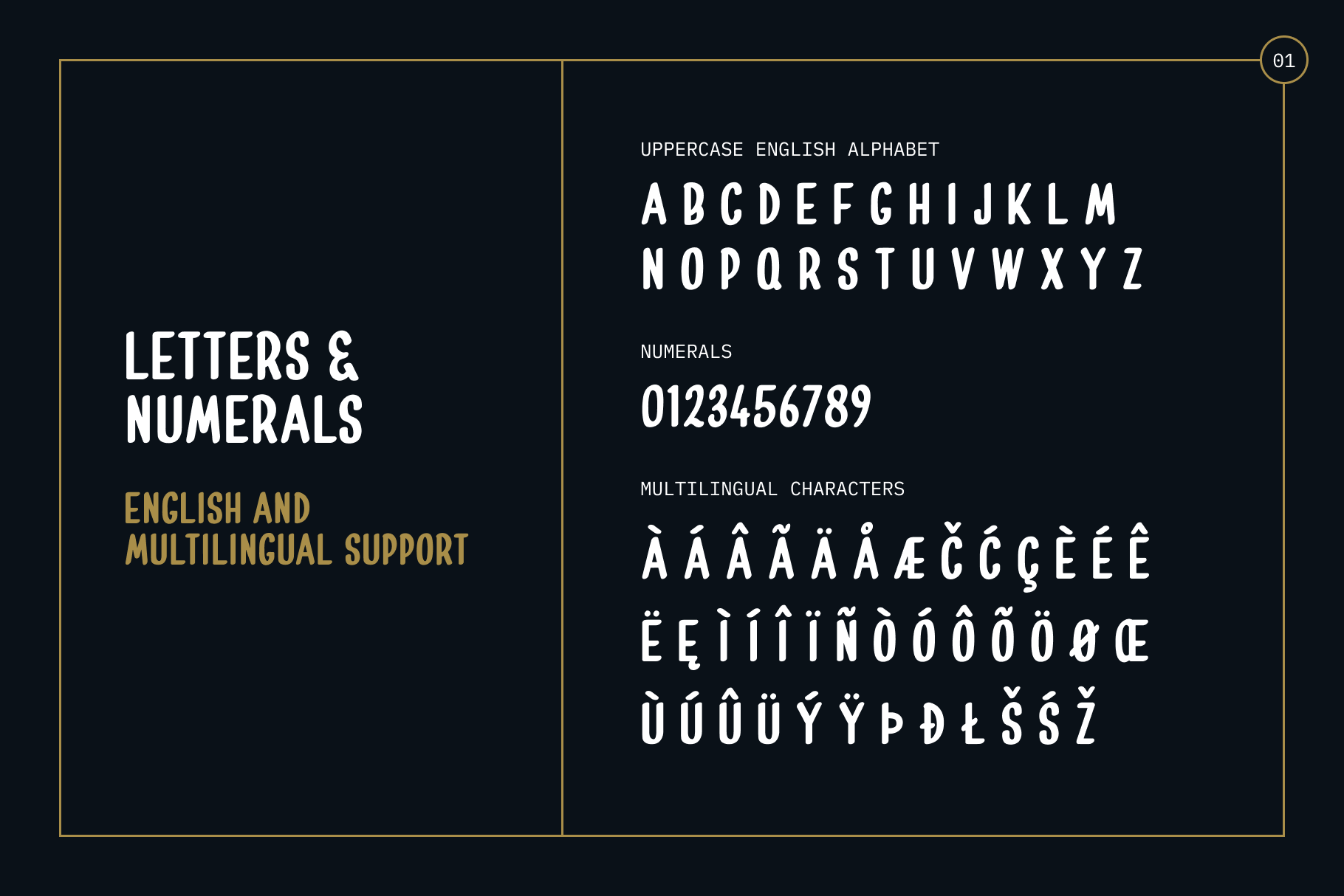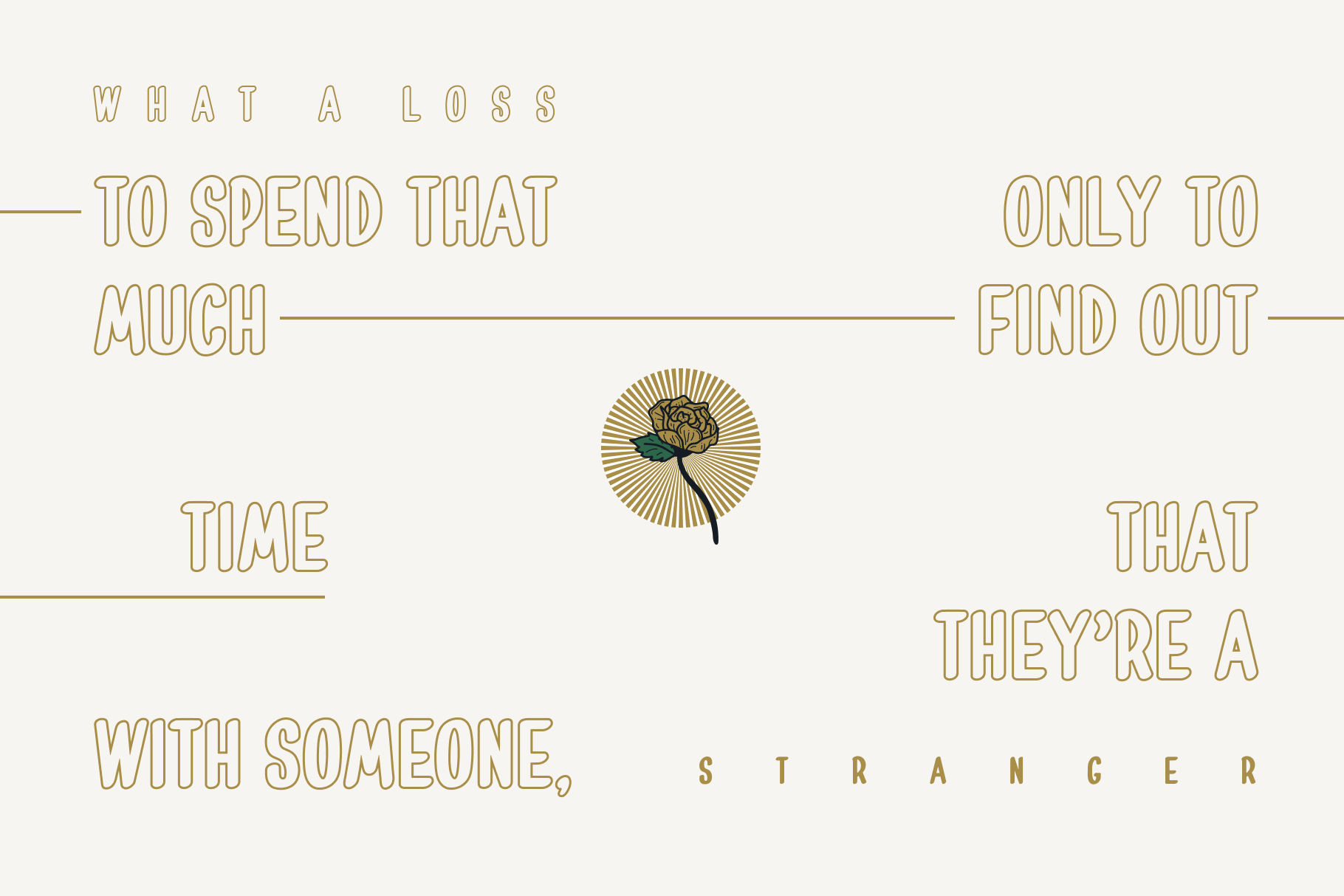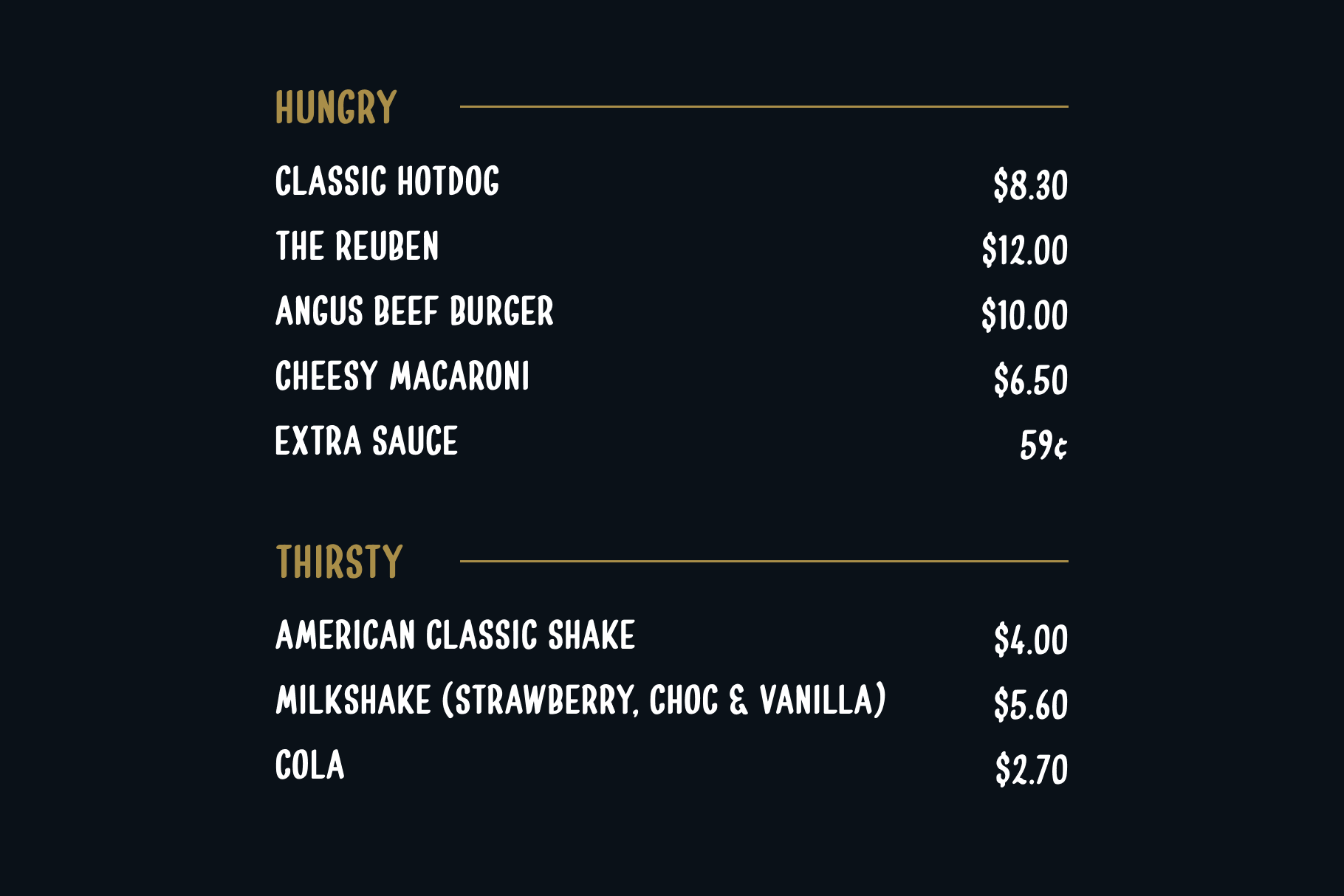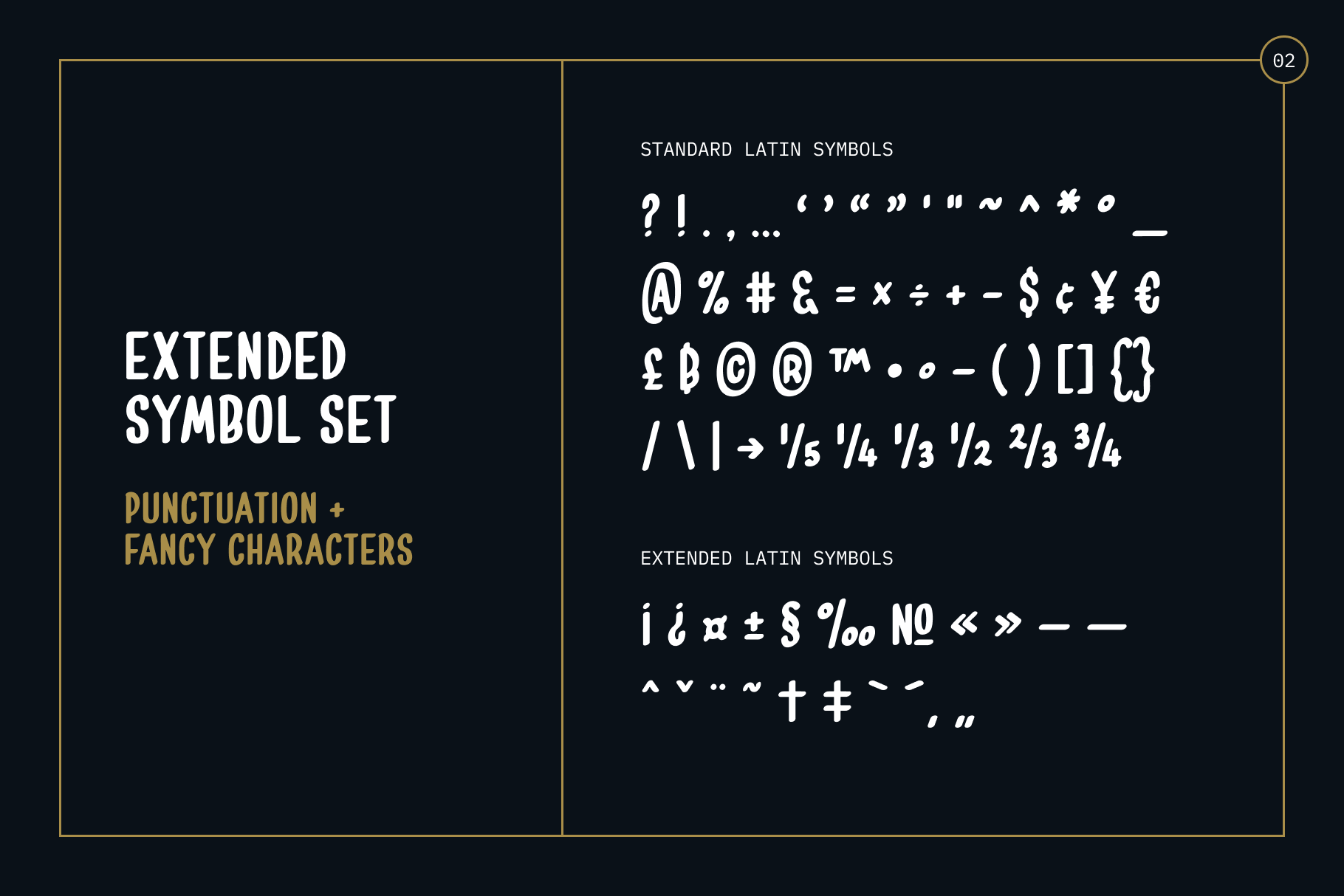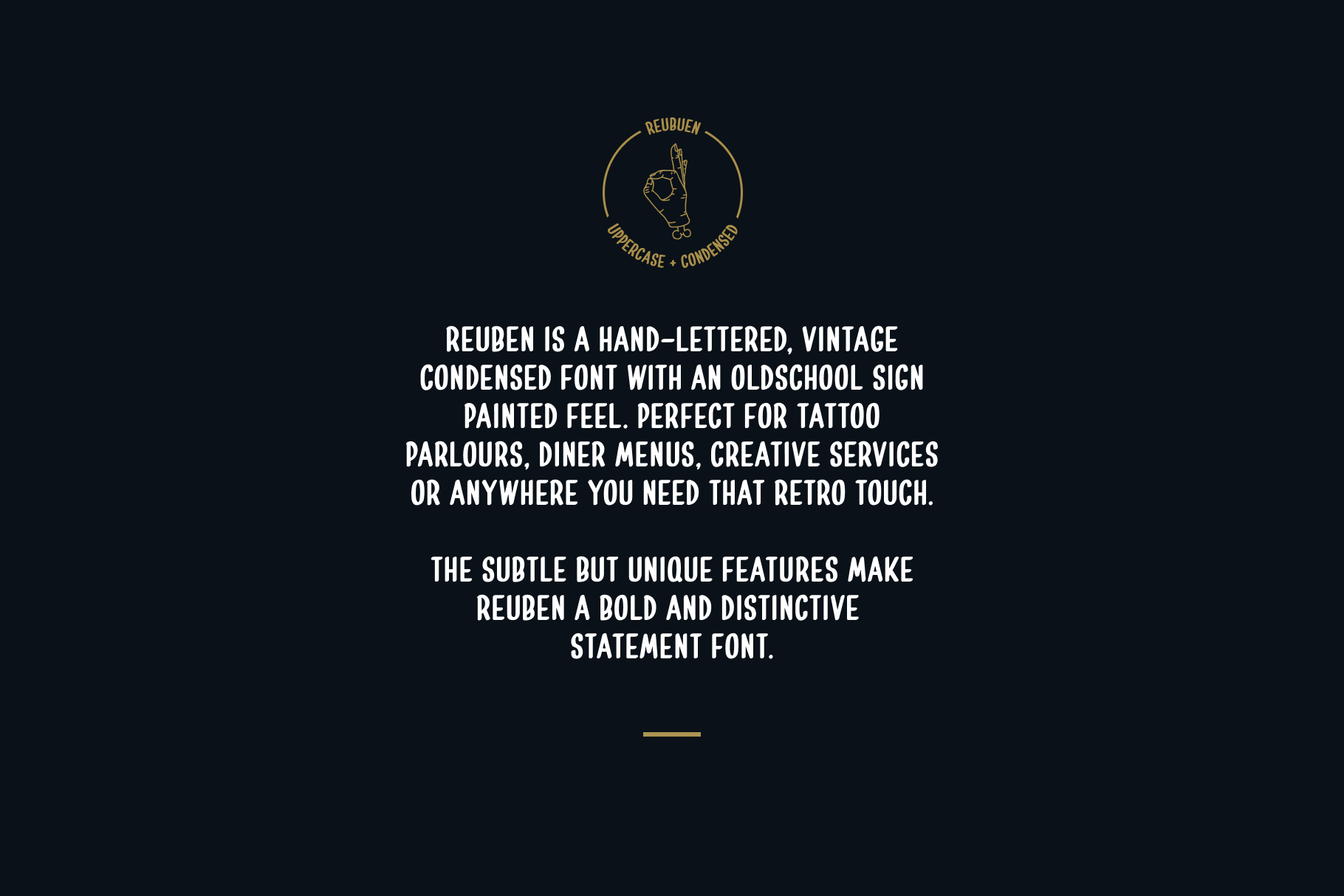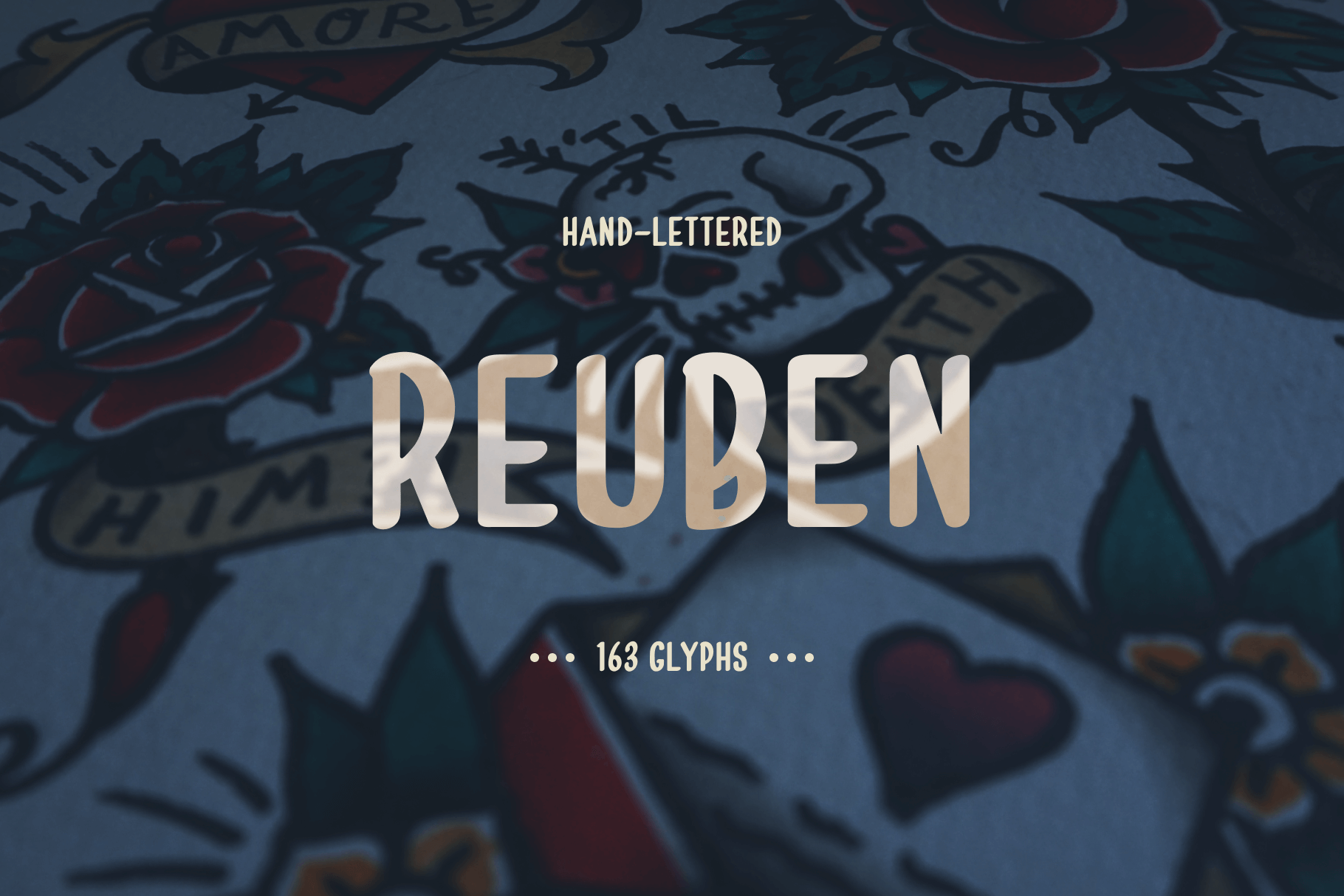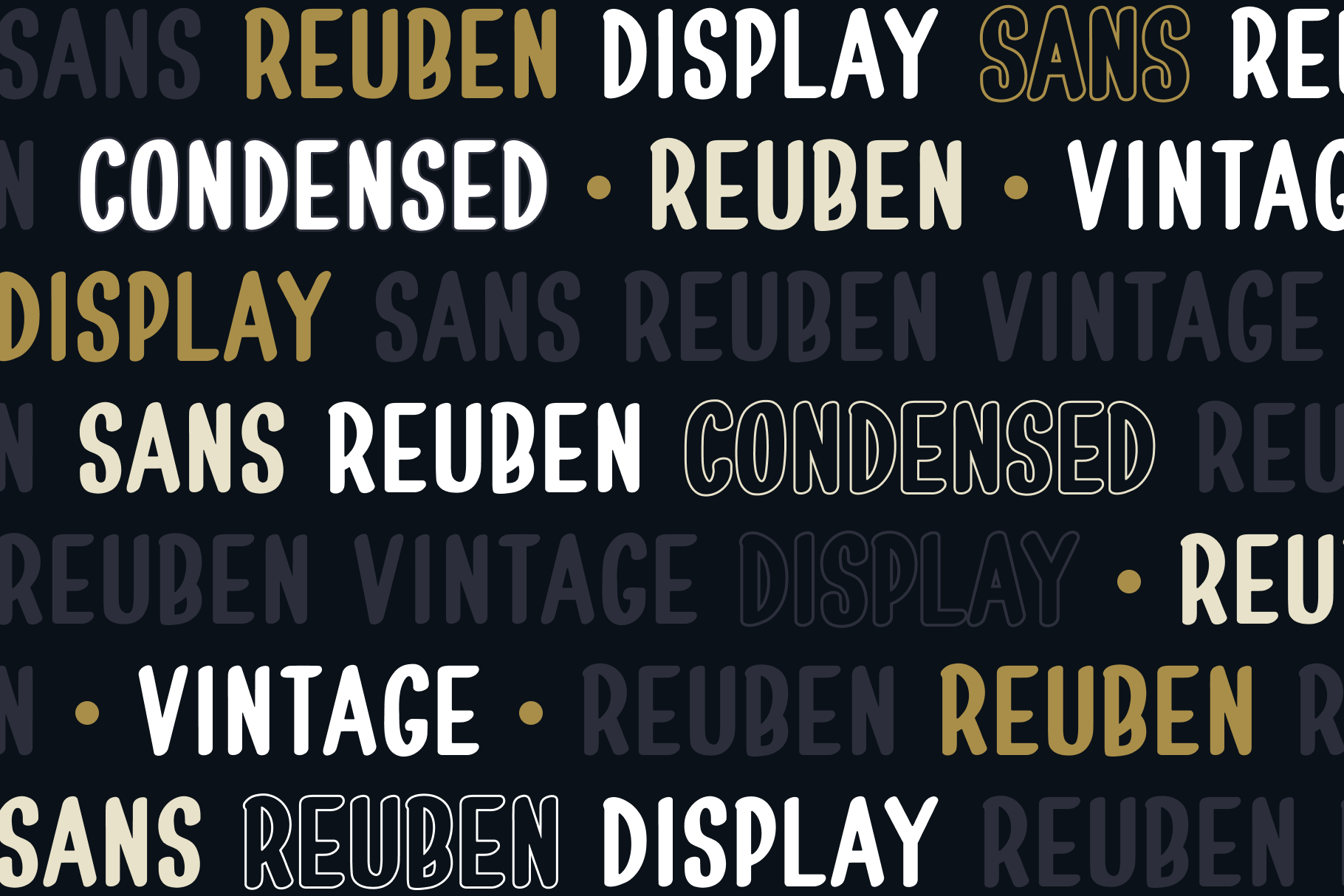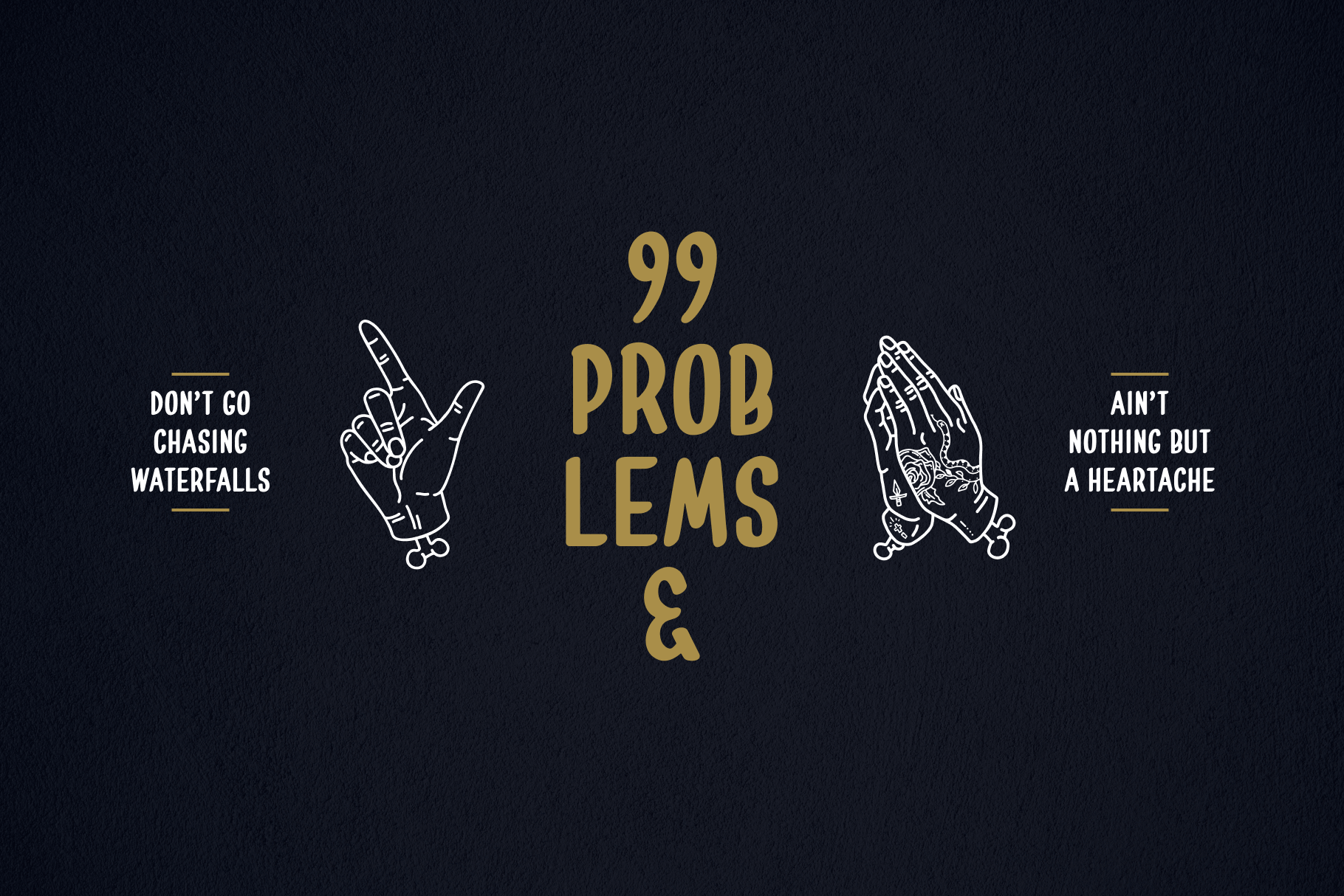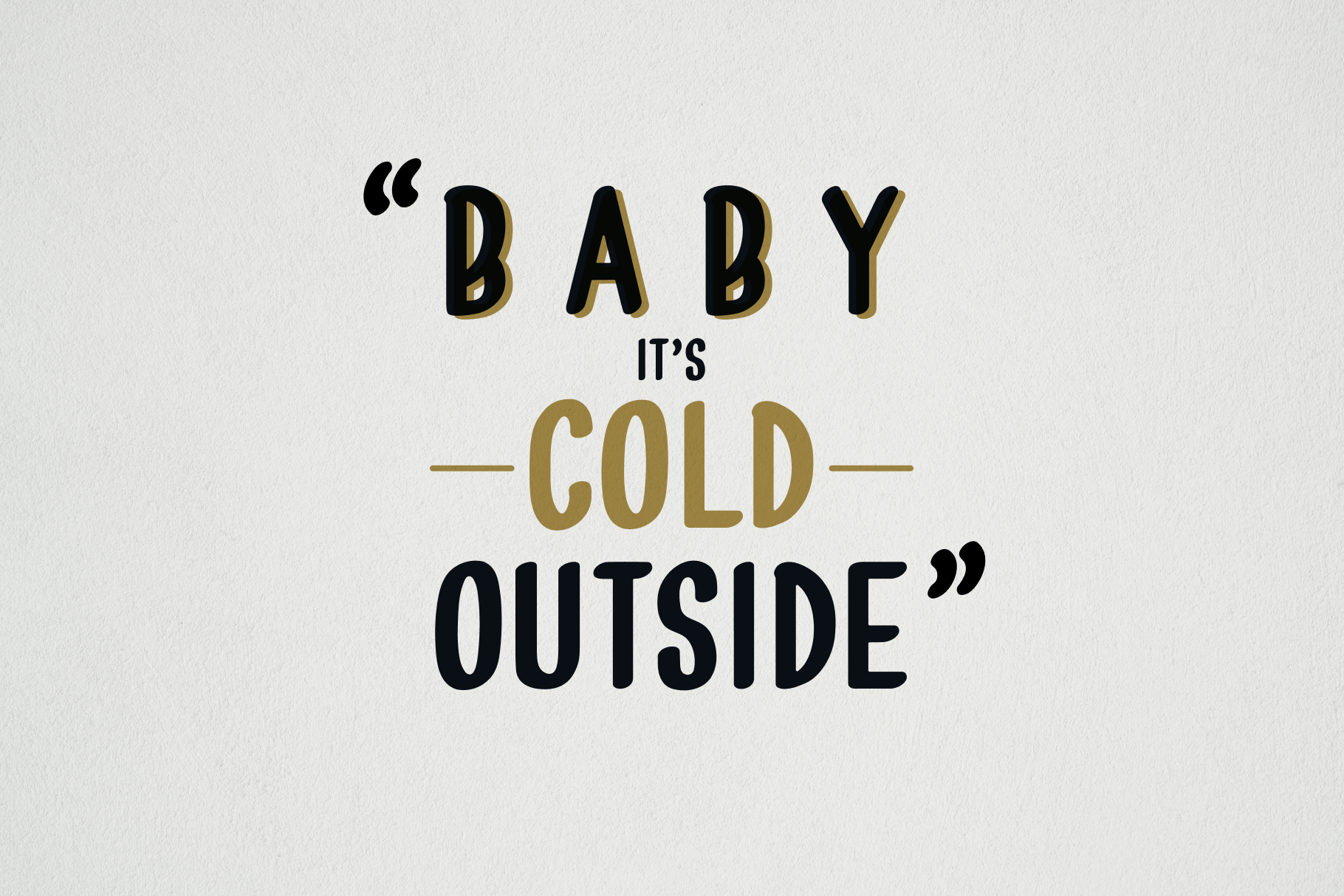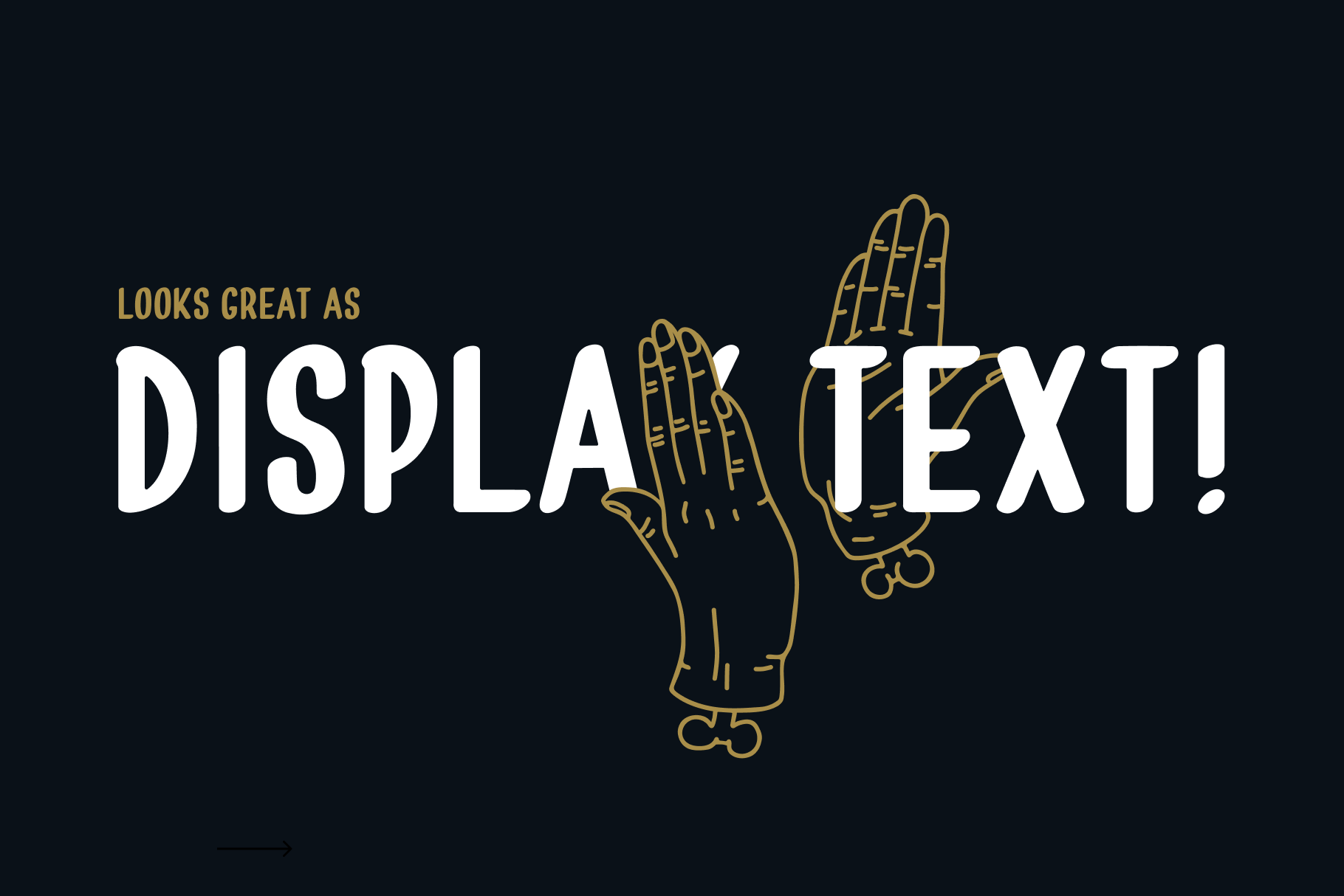
Reuben
Reuben is a hand-lettered, retro condensed font inspired by classic sign painting.
With its bold strokes and old-school character, it’s perfect for diner menus, tattoo parlours, creative studios or anywhere you need a nostalgic touch.
Subtle yet distinctive details give Reuben its charm… making it a statement font that really stands out.
With tight spacing and a hand-painted feel, Reuben captures the spirit of vintage signage and retro advertising. Its condensed form adds impact in limited spaces, while its natural curves and subtle imperfections keep things feeling authentic and handcrafted. Reuben supports a wide range of Latin-based languages with its generous range of multi-lingual characters. Try it out in the type tester!
With tight spacing and a hand-painted feel, Reuben captures the spirit of vintage signage and retro advertising. Its condensed form adds impact in limited spaces, while its natural curves and subtle imperfections keep things feeling authentic and handcrafted.
Reuben supports a wide range of Latin-based languages with its generous range of multi-lingual characters. Try it out in the type tester!